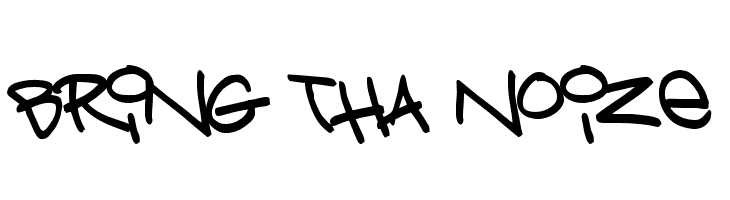
A bold, decorative font with sparkling star patterns in each character.
A bold, futuristic font with geometric, angular characters.
A modern, geometric font with tall, narrow characters and consistent stroke width.
A bold, energetic handwritten font with dynamic curves and a playful style.
A playful and romantic font with elegant curves and whimsical serifs.
A bold, 3D font with strong shadow effects and a modern, dynamic style.
A bold, decorative font with calligraphic and blackletter influences.
A bold, italicized font with a futuristic and geometric design.
A bold, italic, geometric font with a modern and dynamic style.
A dynamic, handwritten-style font with medium contrast and expressive strokes.
The image is a maze or dungeon layout, not a font.
A bold, geometric font with a futuristic and industrial aesthetic.
A bold, condensed, and italicized font with sharp angles and a modern aesthetic.
An elegant, festive script font with flowing, cursive letterforms and elaborate swashes.
Bold, distressed stencil font with a rugged, military look.
A playful, cat-themed decorative font with script-like elegance.
A playful and whimsical handwritten font with artistic flair.
A bold, playful font with a 3D effect and graffiti-like style.
A smooth, flowing script font that mimics natural handwriting.
A playful, whimsical font with tall, narrow letterforms and exaggerated serifs.
A bold, italic, and condensed font with a modern, geometric style.
A decorative font inspired by primitive art and stone carvings, featuring whimsical illustrations.
A playful, hand-drawn font with rounded, bold characters.
A bold, geometric font with sharp angles and a futuristic style.